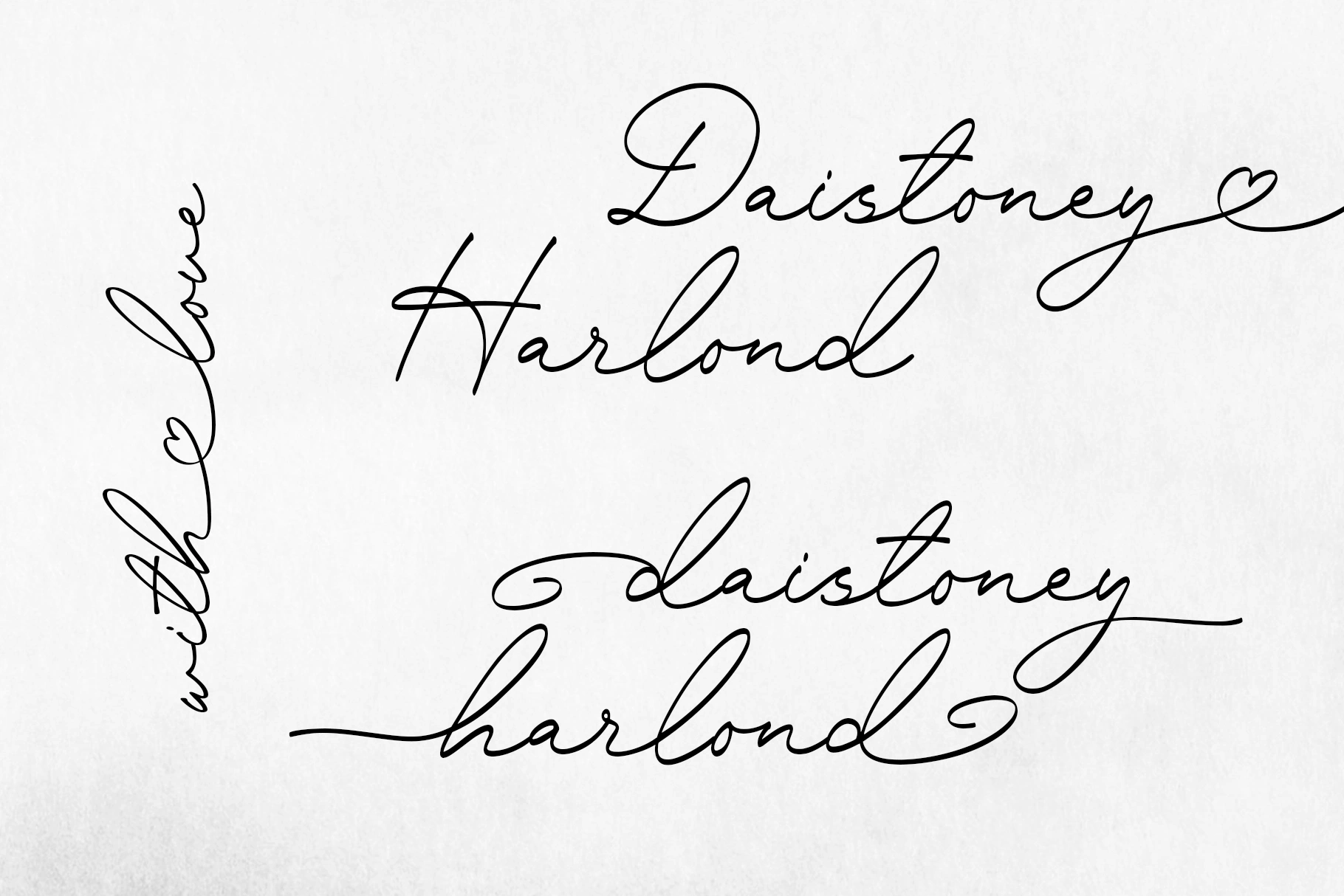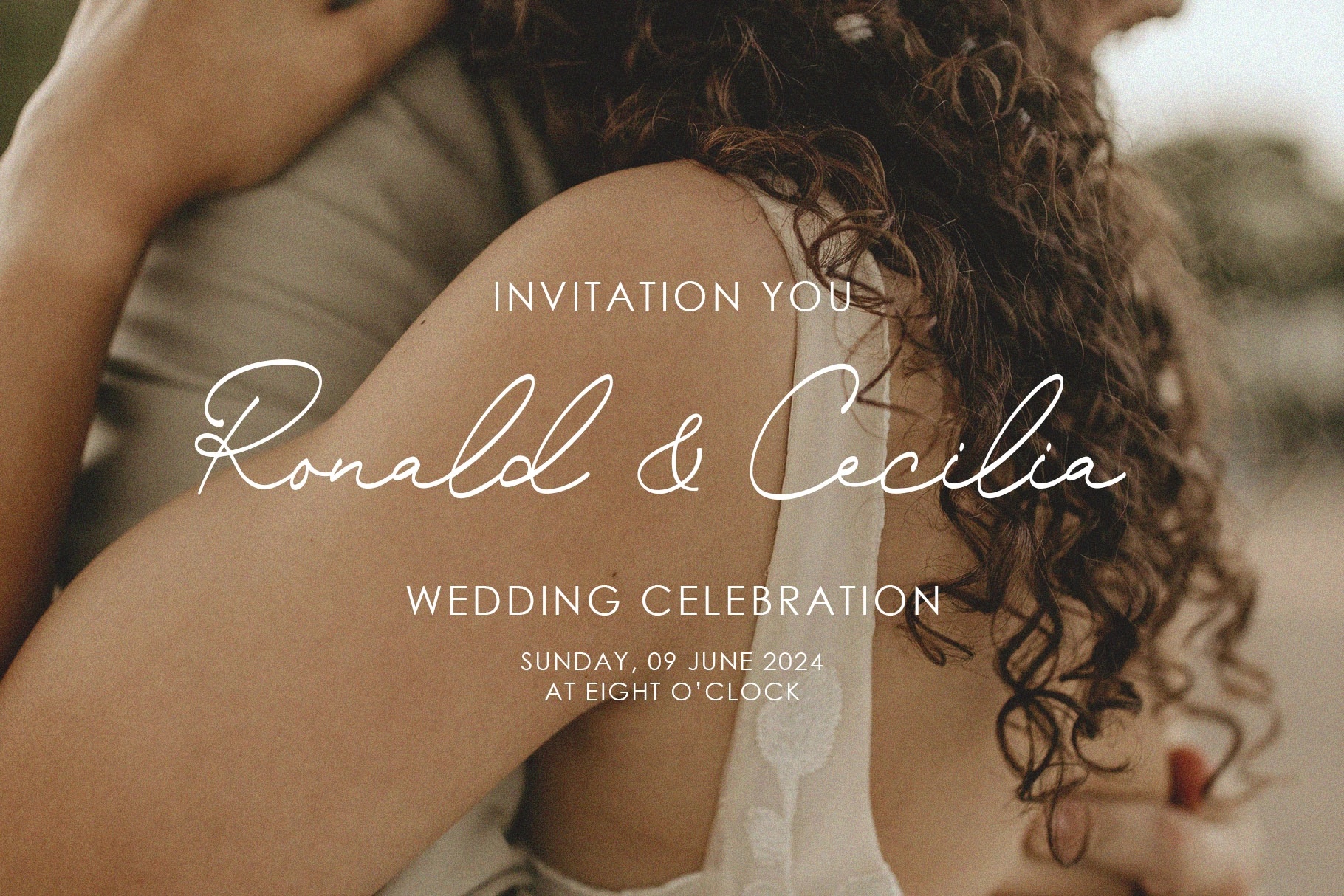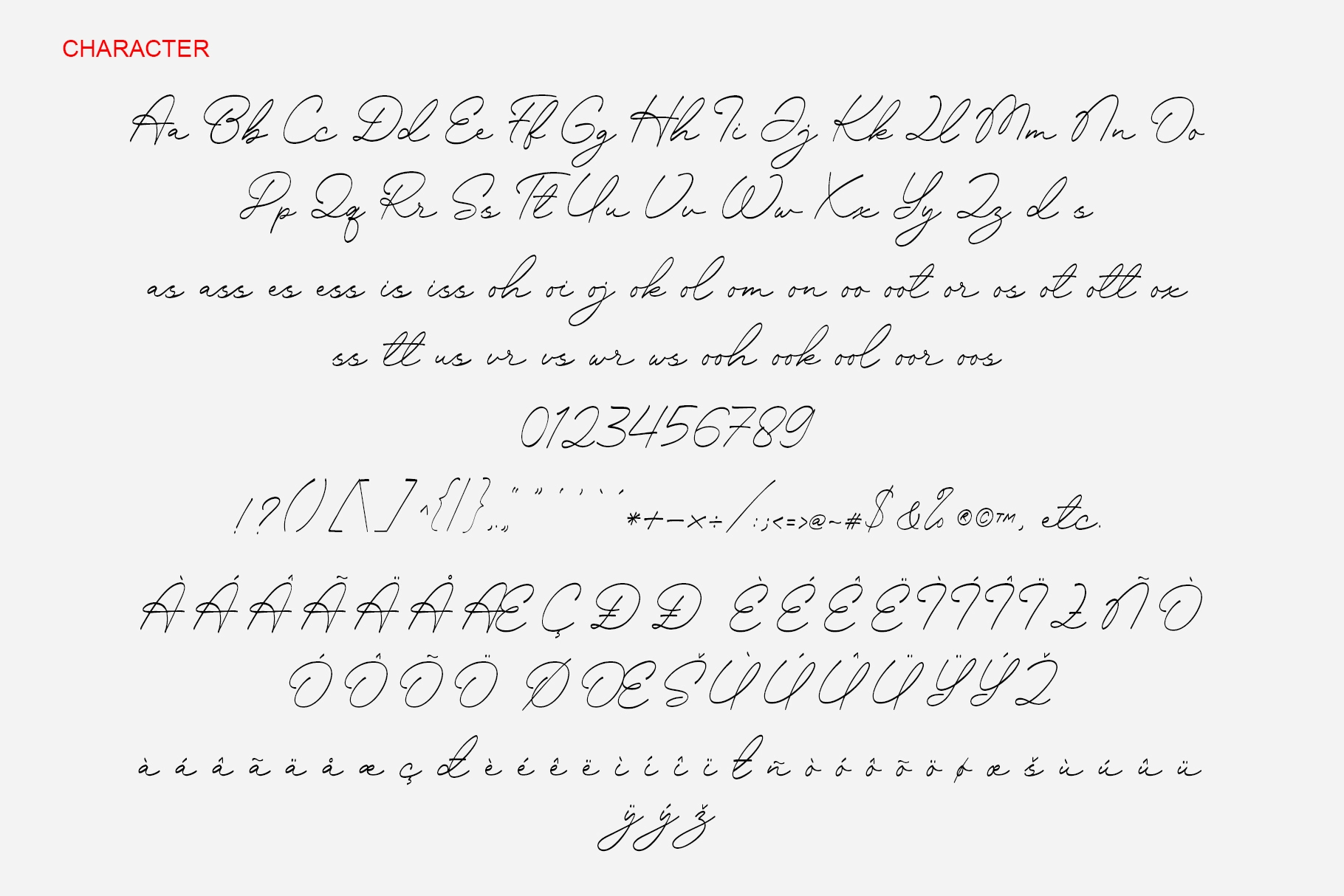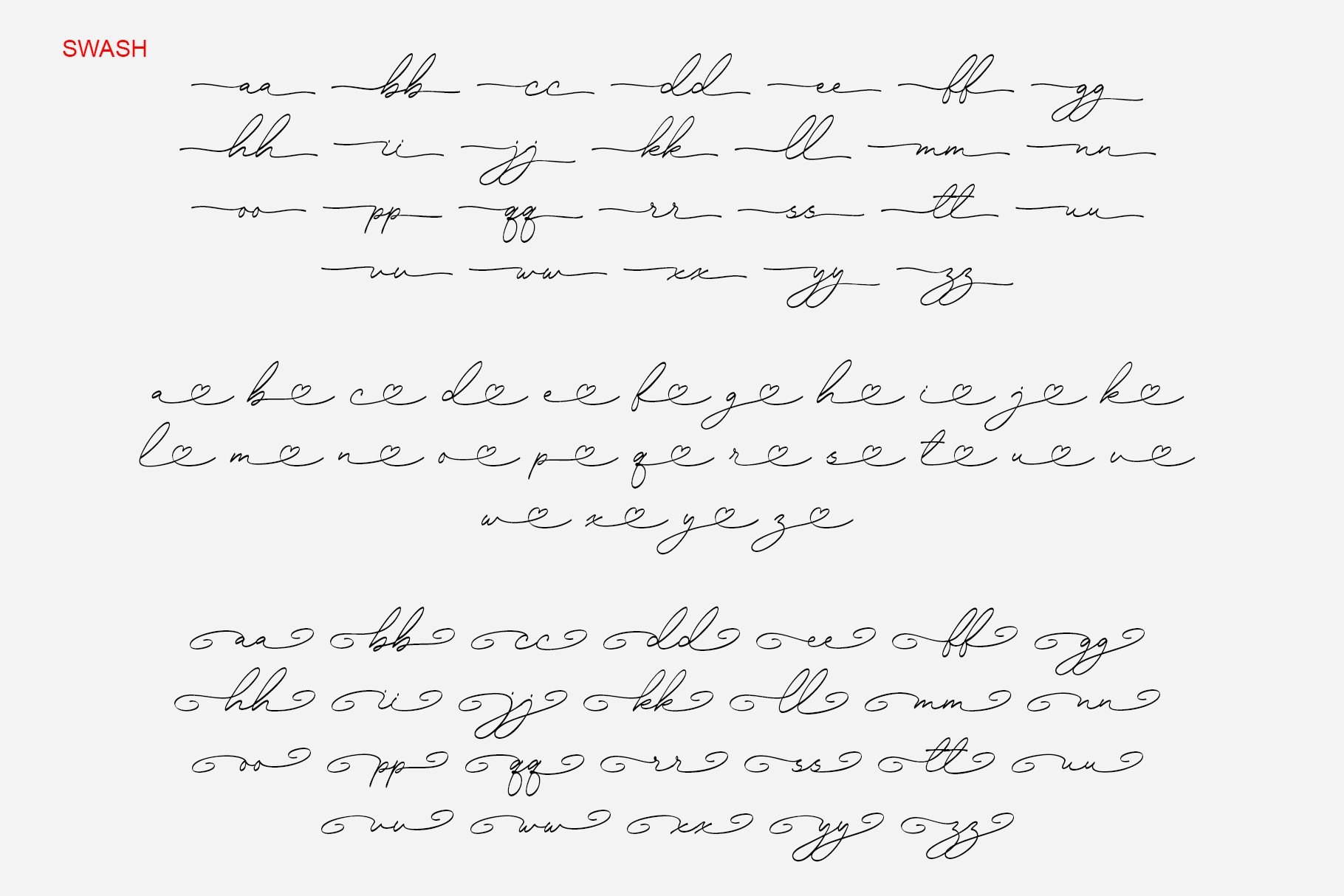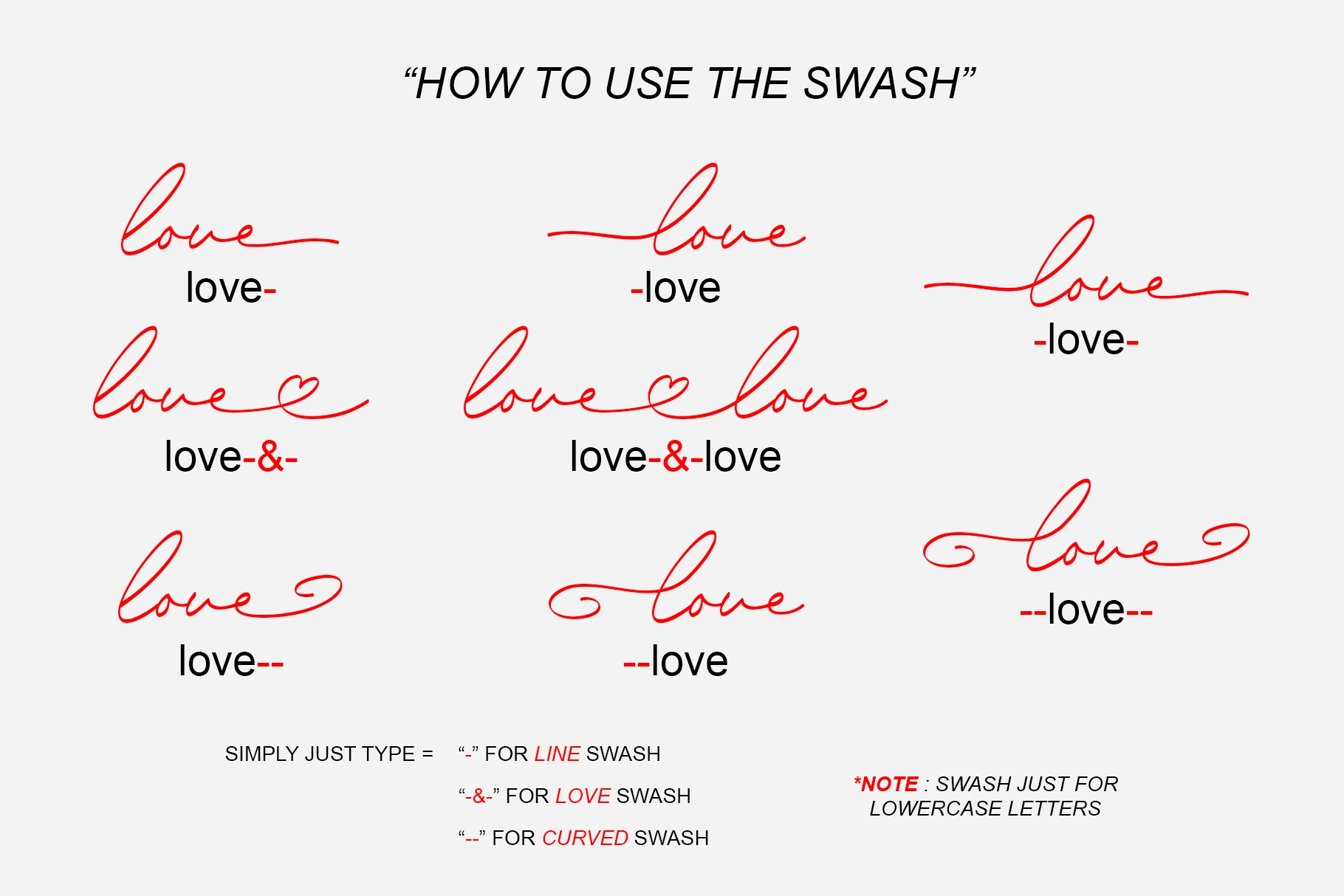
Daistoney Harlond - Swash Calligraphy
An modern calligraphy script, with various swash. This testament to the fusion of contemporary design with classic elegance. This font exemplifies the artistry of modern script typography, offering a dynamic range of characters adorned with exquisite swashes and flourishes.
What ever used for signature logos, calligraphy logos, branding, invitations, packaging, product display, wedding design, quote, social media, or editorial design, Daistoney Harlond offers unparalleled versatility and visual impact. It seamlessly adapts to different design styles and contexts, adding a touch of elegance and charm to any project.
How to use the swash:
- Just add "-" for LINE swash
- "-&-" for LOVE swash
- "--" for CURVED swash